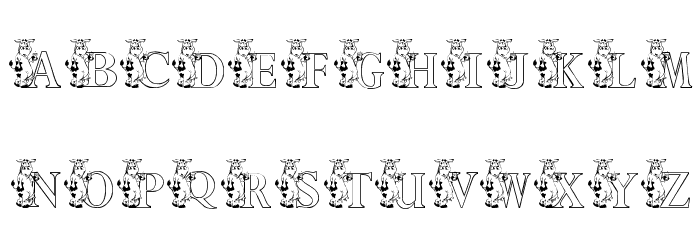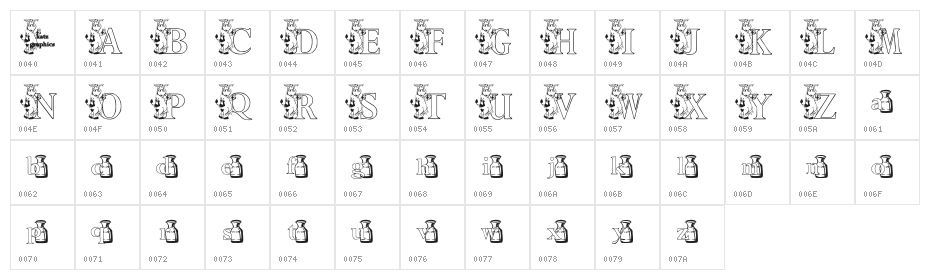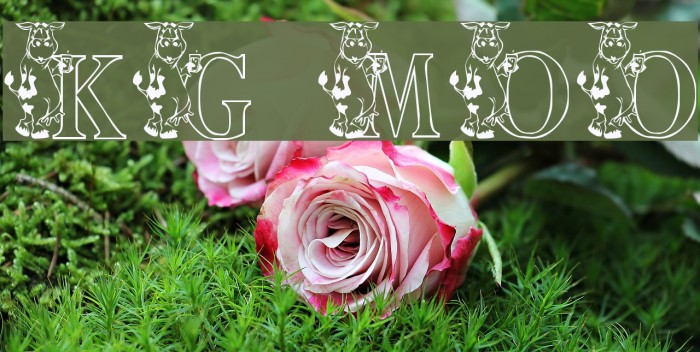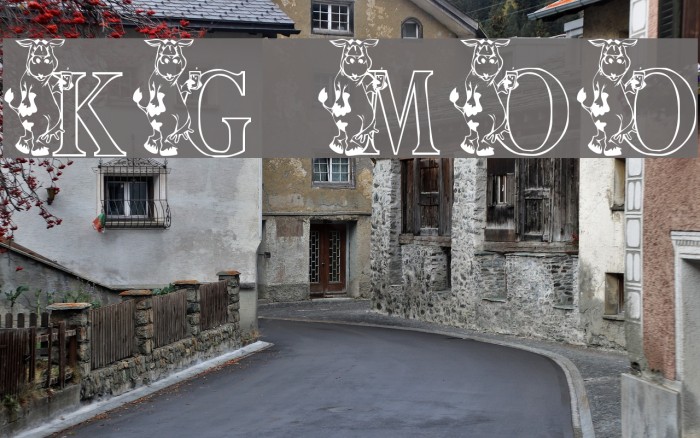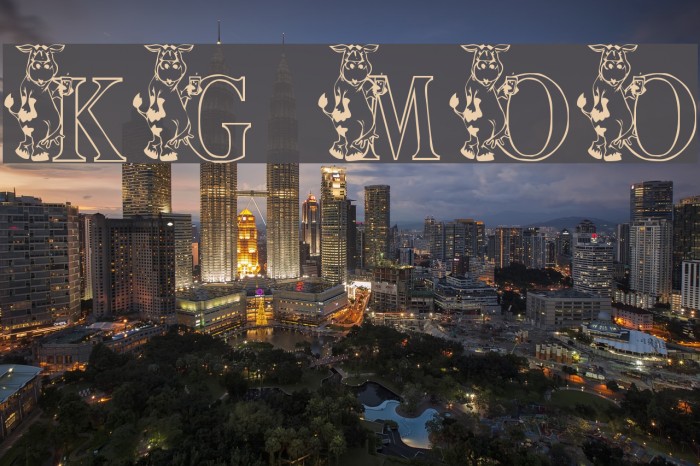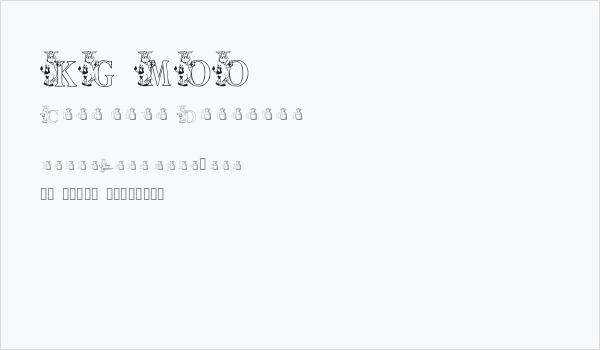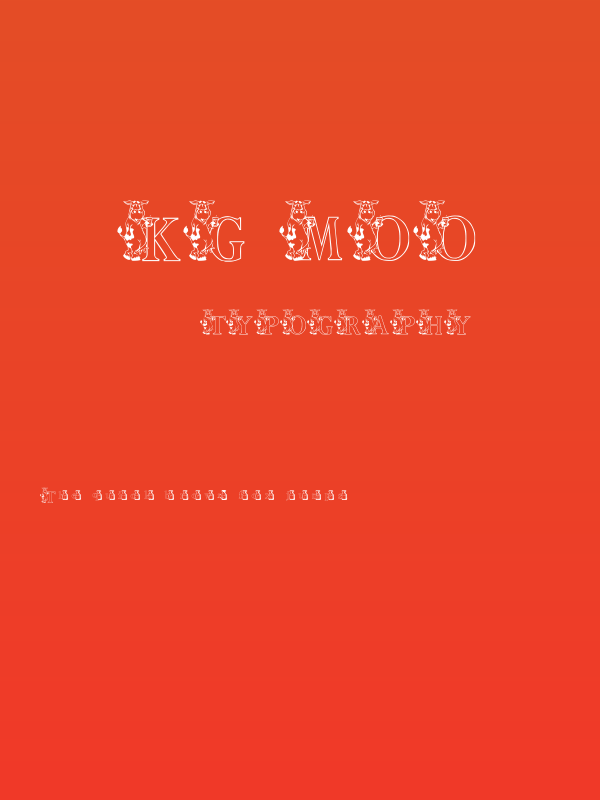
KG MOO Font
KG MOO Description
This playful and whimsical font features a unique design where each character is integrated with a cow motif, giving it a distinct farm or dairy theme. The letters are bold and outlined, with cow spots and a cow head incorporated into the design, making it highly decorative and eye-catching. The font maintains a consistent style across uppercase, lowercase, and numeric characters, with special characters also following the same theme. This font is perfect for projects that require a fun and thematic approach, particularly those related to agriculture, dairy products, or children's materials.
| Proposed Projects | Ideal for children's books, farm-themed events, dairy product branding, and playful graphic designs. |